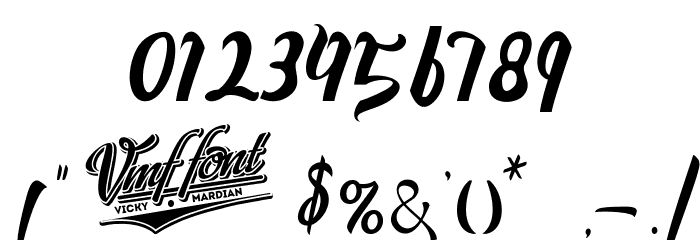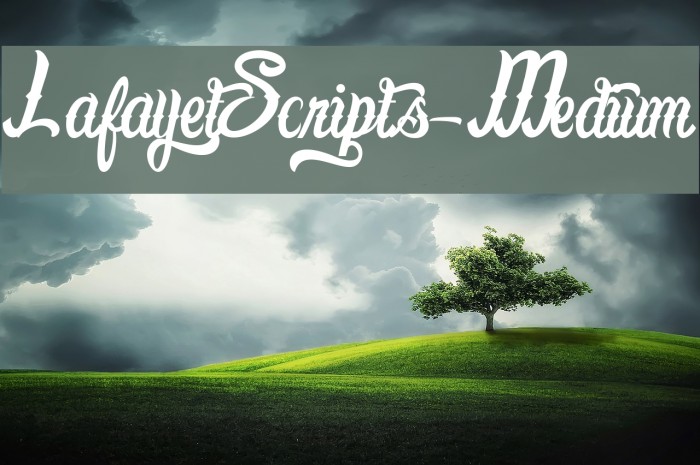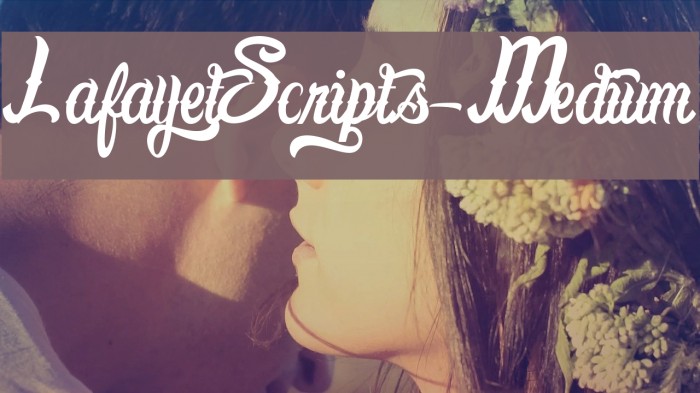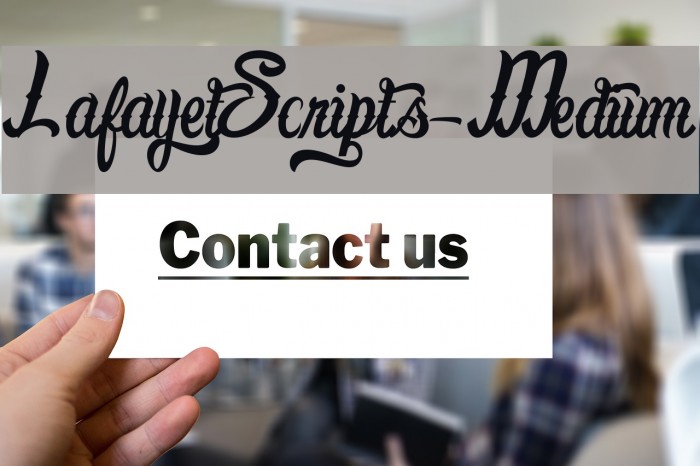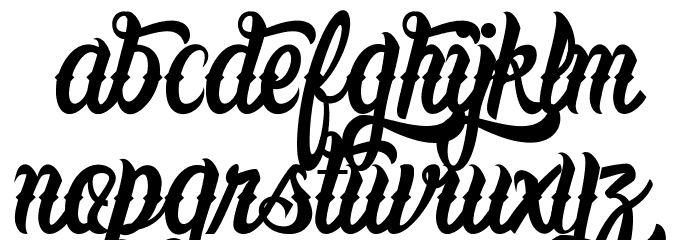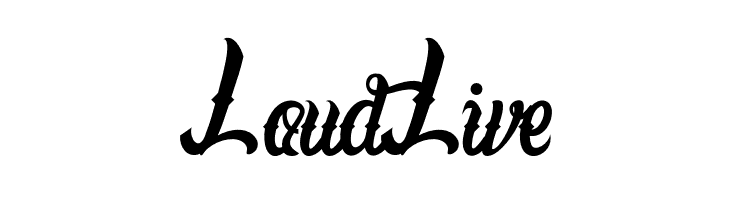
LafayetScripts-Medium Font
LafayetScripts-Medium Description
This font exhibits a dynamic and flowing script style, characterized by its elegant and cursive letterforms. The uppercase letters are bold and sweeping, with intricate loops and flourishes that add a sense of movement and sophistication. The lowercase letters maintain a consistent style, with smooth connections and a slightly slanted orientation, enhancing the cursive aesthetic. The numerals and special characters are designed to complement the overall script style, maintaining the same fluidity and elegance. This font is ideal for projects that require a touch of elegance and personality, such as invitations, branding, and decorative designs.
| Overall Style | Elegant |
| Use Case | Logos, Invitations, Decorative text |
| Proposed Projects | Ideal for wedding invitations, branding, logos, and decorative projects. |